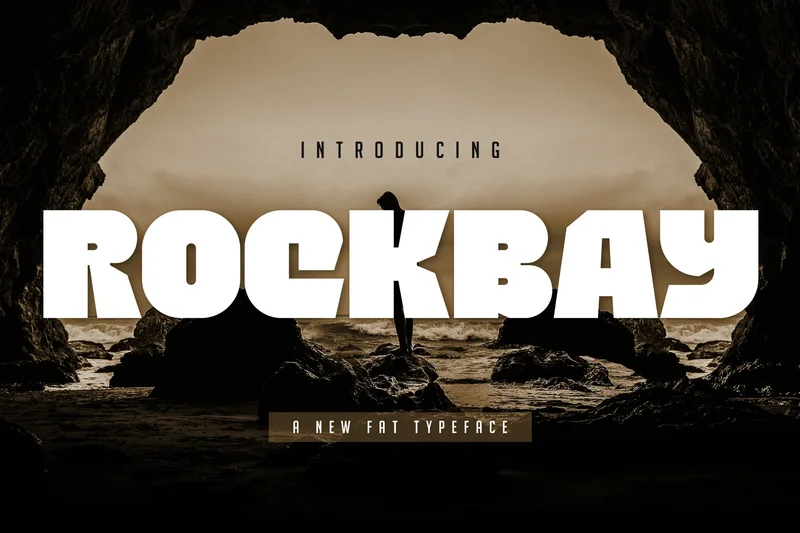
Bold Adventure – Rockbay
A New Fat Typeface for Maximum Impact
Rockbay is a bold, heavyweight display font designed to deliver pure, unadulterated strength and attention-grabbing power. With its extra-thick strokes, slightly rounded edges, and compact design, Rockbay stands out in any composition, making it the ultimate tool for designs that demand to be seen.
Inspired by rugged landscapes and robust advertising, this font is perfect for creators looking to project energy, durability, and a dynamic modern aesthetic.
Key Features & OpenType Goodies:
Massive Weight: An extremely bold, “fat” style that guarantees high visibility and presence.
Geometric & Rugged: A modern sans-serif with subtle angles and curves that give it a unique, powerful shape.
All-Caps Display: Includes both Uppercase and Lowercase sets, as well as Numerals and standard Punctuation.
Stylistic Alternates & Ligatures: Unlock creative options with a variety of ligatures and alternates (like the distinctive ‘A’, ‘g’, and connected letters) to customize your typography and add a sleek, connected look.